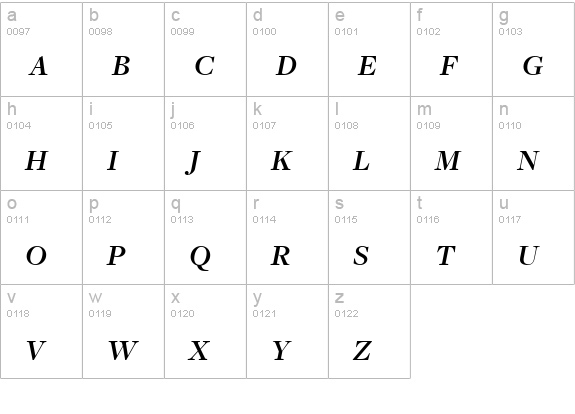
FreightDispMediumItalicSC Font Details
FreightDispMediumItalicSC font is a sleek and modern typeface that exudes sophistication and style. With its elegant italic design, this font is perfect for adding a touch of class to any project. Whether you're creating a professional presentation or designing a stylish website, FreightDispMediumItalicSC font will elevate your work to the next level. What sets FreightDispMediumItalicSC font apart is that it is available for free download at FontsMarket.com. This means you can access this high-quality font without any cost, making it a valuable resource for designers and creators looking to enhance their projects without breaking the bank. Don't miss out on the opportunity to add FreightDispMediumItalicSC font to your font library today!